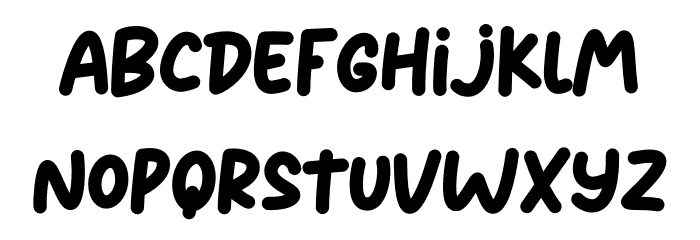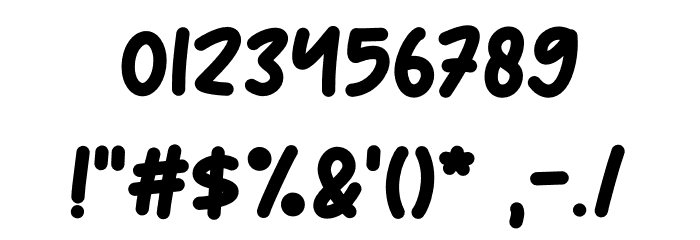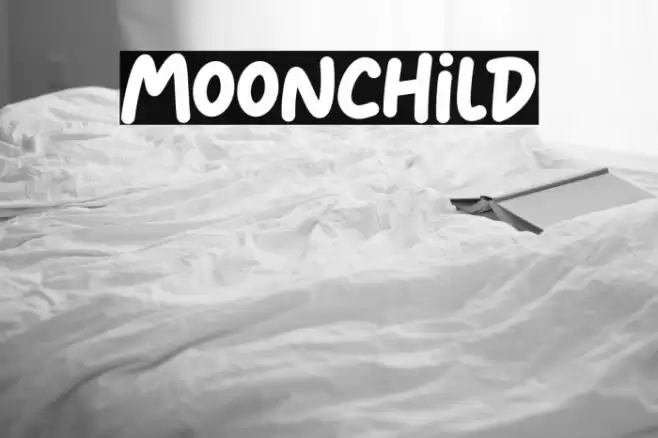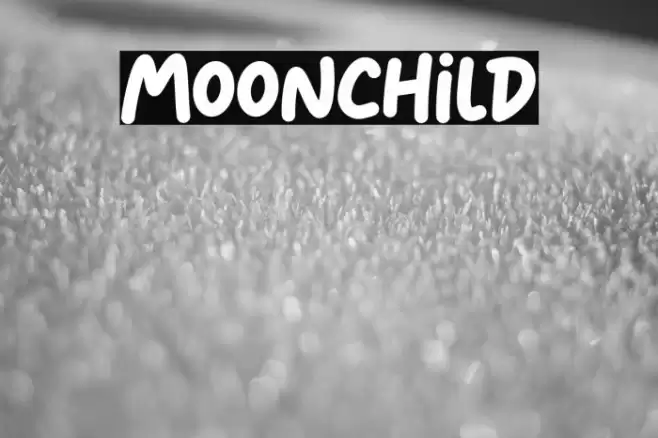
Moonchild Font
This playful and bold font features rounded, thick strokes that give it a friendly and approachable appearance. The letters are slightly irregular, adding a hand-drawn feel that enhances its casual style. The uppercase and lowercase characters maintain a consistent weight, contributing to a cohesive look. The numbers and special characters are designed with the same playful aesthetic, making them suitable for a variety of creative applications. The font's overall style is reminiscent of handwritten notes, making it perfect for projects that require a personal touch.
A playful, bold font with rounded, hand-drawn strokes.
- Proposed Projects: Ideal for children's books, playful branding, greeting cards, and social media graphics.
- Category: Handwritten
- Overall Style: Playful